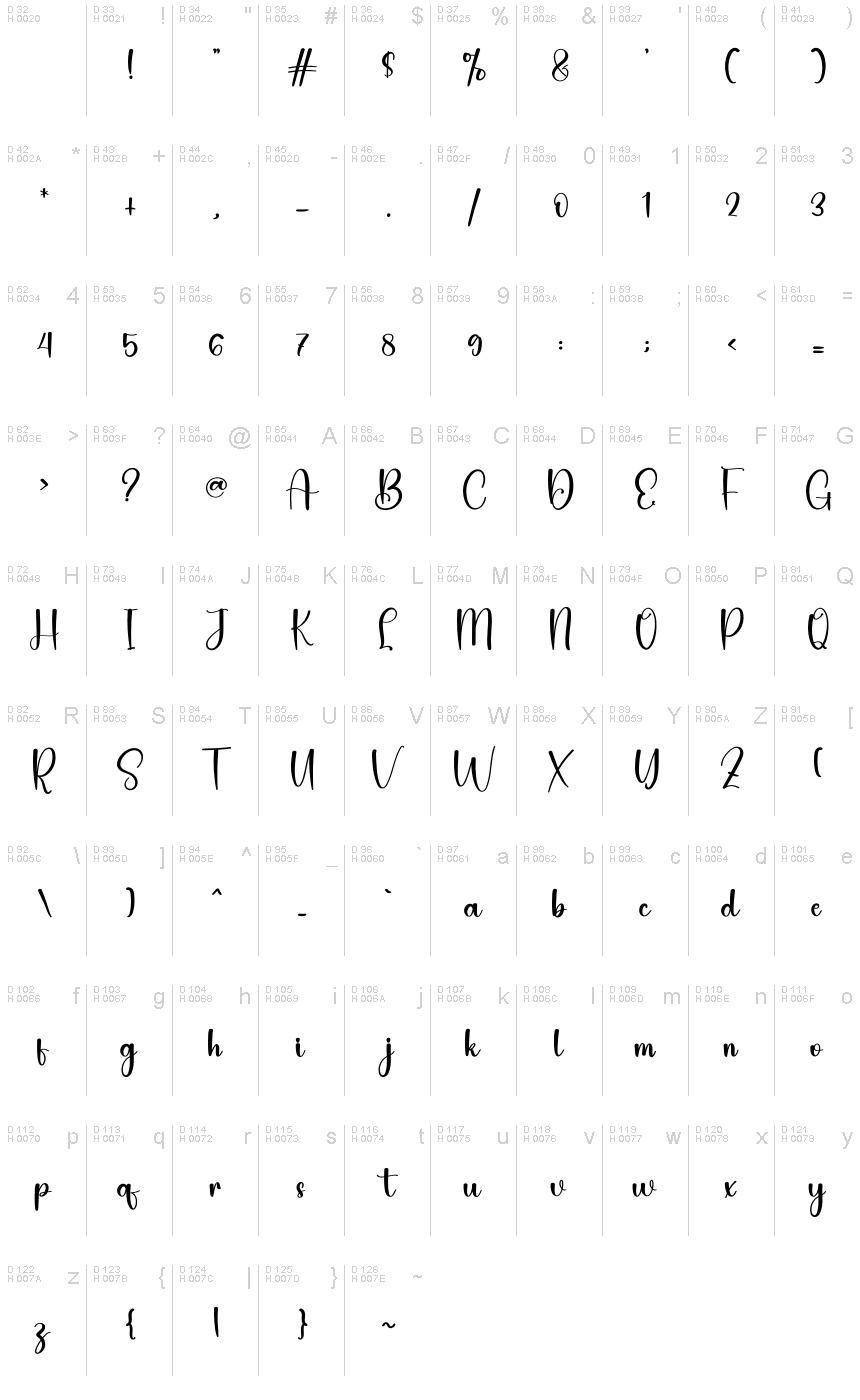
Bundles
Bundles font by Inermedia Studio captivates with its exquisite handwritten style, exuding charm and authenticity. This free font features elegant curves and fluid strokes, offering a personal touch to any design. The expansive letterforms create a sense of openness and friendliness, making it perfect for eye-catching headings or stylish branding projects.
Ideal for use in invitation cards, logos, and social media graphics, Bundles adds a whimsical yet sophisticated element to your visual content. Its versatility seamlessly adapts to both playful and formal contexts, ensuring broad usability across various design needs.